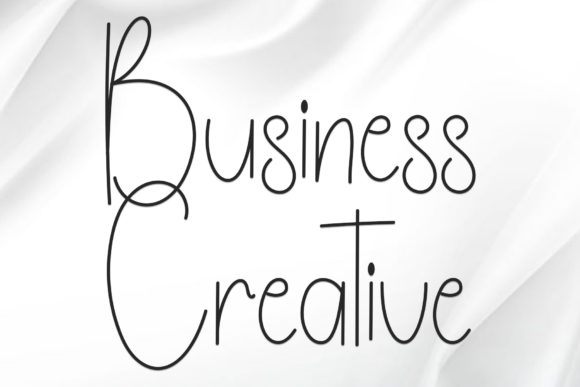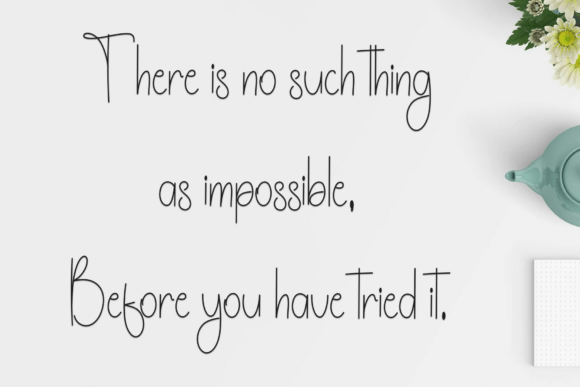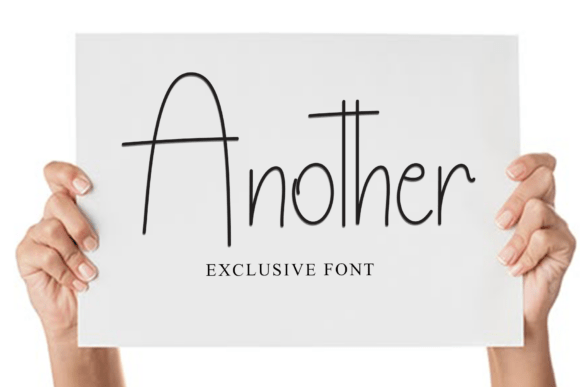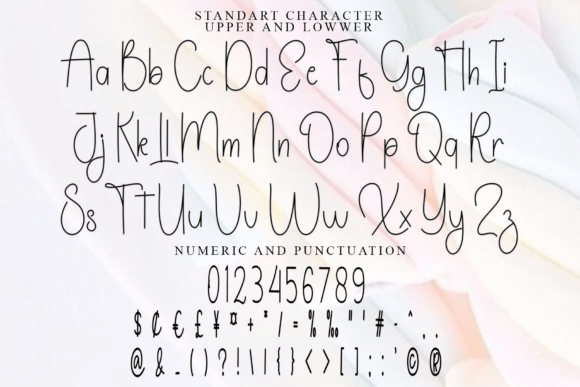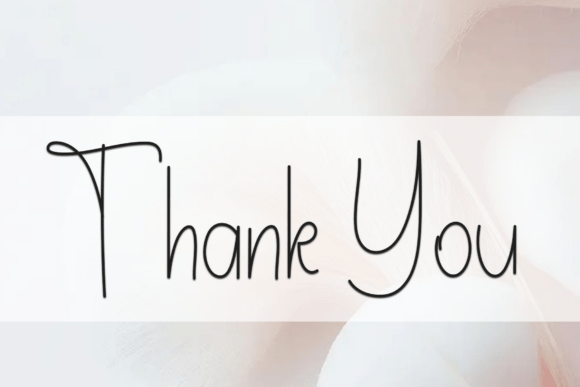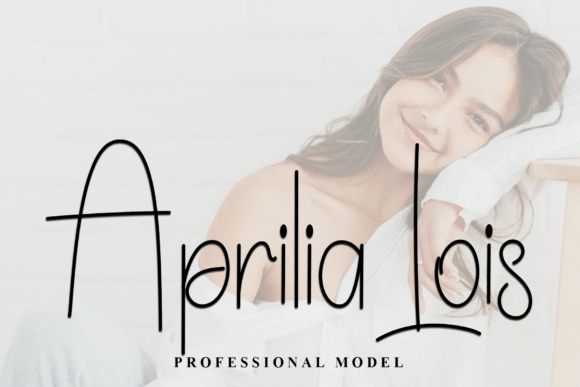
The Perfect Font for Your Masterpiece
Have you ever stared at a blank canvas, waiting for the perfect inspiration to strike? For designers and creatives, this moment is a familiar and exciting one. It’s the moment when everything comes together, and your vision starts to take shape. And, let’s be honest, the right font can make all the difference.
Introducing the Beauty Smile Font, a beautiful and eye-catching font designed with a soft, unique touch. Its distinctive strokes give it a special character, making it meaningful and versatile for future use. Whether you’re working on a design project, crafting a unique piece, or simply looking for a font to elevate your creative work, the Beauty Smile Font is an excellent choice.
As a designer, you know how crucial the right font can be in capturing your audience’s attention. With its natural style and compatibility with various applications, the Beauty Smile Font is an invaluable asset to your creative toolkit.
Beauty Smile Font Key Features
- Font Family: Beauty Smile, with a total of 8 styles (Thin, Light, Regular, Medium, Bold, Extra Bold, Black) for versatile use.
- Unique Characteristics: The Beauty Smile Font features a unique, modern design with rounded edges and a friendly feel, making it ideal for use in branding, advertising, and editorial content.
Designer Review: Beauty Smile Font
Overall, I found the Beauty Smile Font to be a decent option for casual, friendly typography. ✨ The font does a good job of conveying a sense of approachability and optimism, making it suitable for applications like social media, blog posts, or advertisements.
- ✨ Friendly and approachable feel
- ✨ Versatile and suitable for various applications
- ✨ Supports multiple languages
- ⚠️ Limited expressiveness and nuances
- ⚠️ May not be suitable for formal or professional contexts
- ⚠️ Could be overused due to its widespread availability
In conclusion, while the Beauty Smile Font is not a groundbreaking or unique design, it does its job well as a friendly and approachable typography option. It’s a good choice for designers who need a reliable and easy-to-use font, but may not be the best option for those seeking a more sophisticated or distinctive look.
The Beauty Smile font is perfect for creating eye-catching headlines and titles. Use it for:
– Beauty and wellness branding
– Fashion and lifestyle marketing
– Health and fitness promotions
For optimal results, use the Beauty Smile font in combination with bold, bright colors and creative graphics.
Q: Are there any font weights or styles available for the Beauty Smile Font?
Yes, the Beauty Smile Font package includes a range of font weights, from Light to Bold, as well as italic and bold italic styles. You can use these variations to create visually appealing and harmonious typography in your designs.